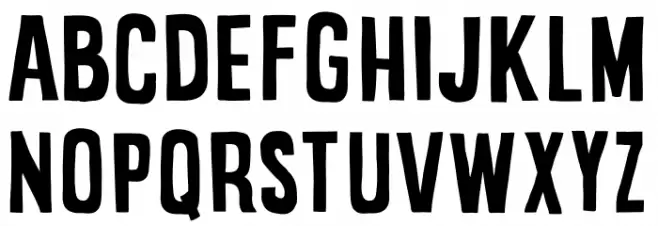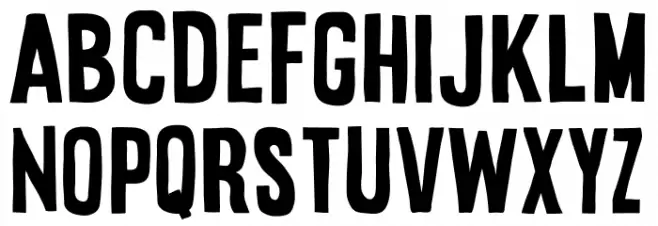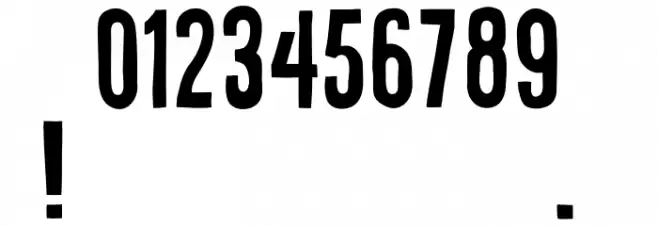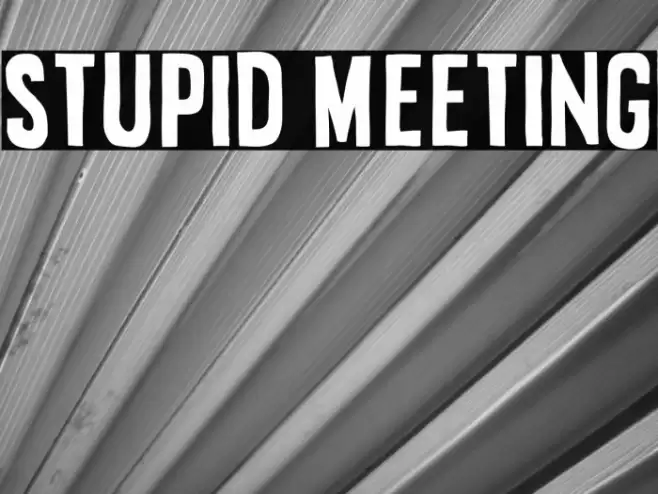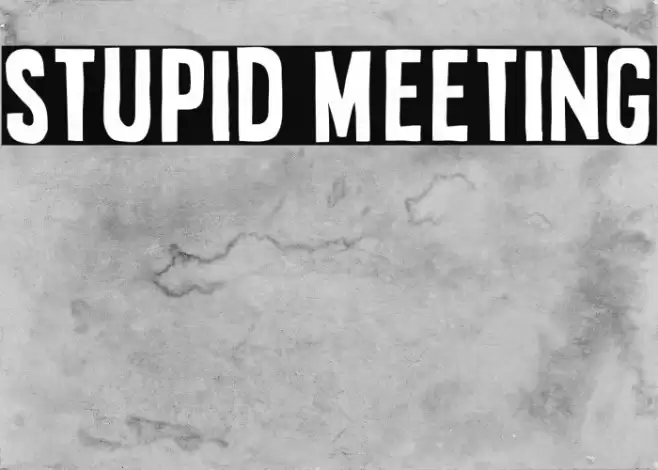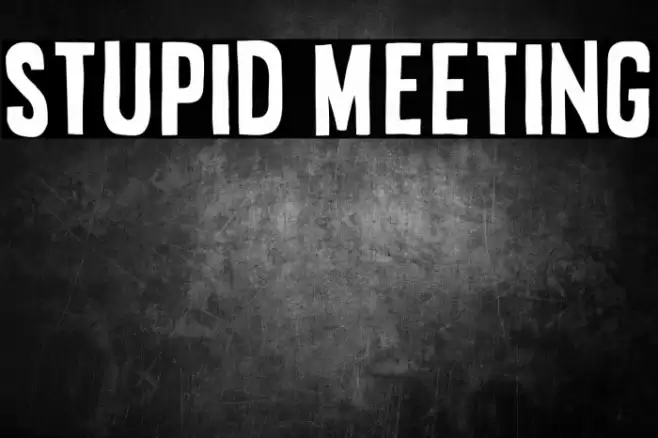
Stupid Meeting Font
Stupid Meeting Description
This font features bold, uppercase letters with a slightly condensed appearance, giving it a strong and impactful look. The characters have a hand-drawn quality, adding a touch of personality and uniqueness. The strokes are thick and consistent, providing a solid and robust feel. The numbers and special characters maintain the same boldness and style, ensuring uniformity across all elements. This font is ideal for projects that require a bold statement or a creative touch, such as posters, headlines, or branding materials.
A bold, hand-drawn font with a strong and impactful style.
- Proposed Projects: Ideal for posters, headlines, branding, and creative projects requiring a bold statement.